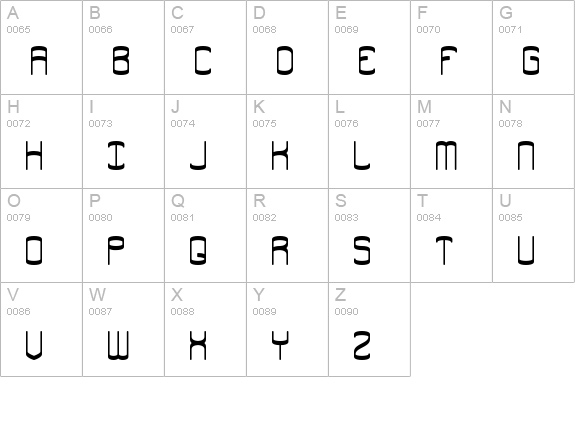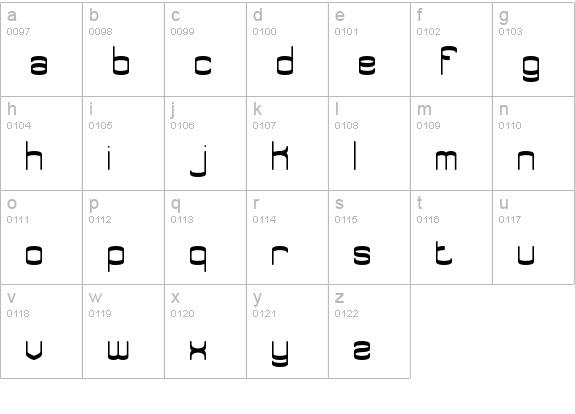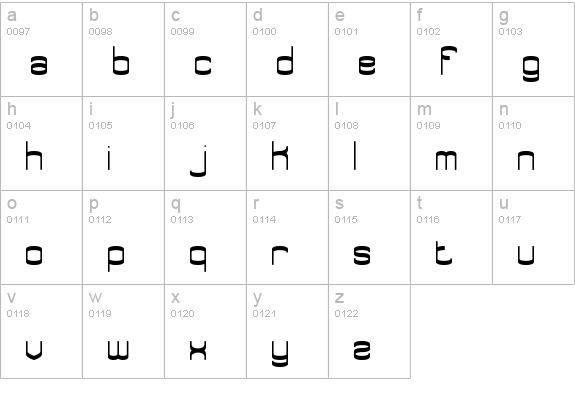
Enthuse Solid BRK font exudes a bold and modern aesthetic, making it perfect for eye-catching designs that demand attention. This typeface features strong lines and a solid structure that adds a touch of sophistication to any project. With its clean and sleek appearance, Enthuse Solid BRK font is versatile and can be used in a variety of design applications, from branding to packaging and more. The best part? Enthuse Solid BRK font is available for free download at FontsMarket.com. This means you can easily access this stylish and impactful font without any cost, making it a valuable addition to your design toolkit. Don't miss out on the opportunity to enhance your projects with the striking Enthuse Solid BRK font – download it today and elevate your designs to the next level.